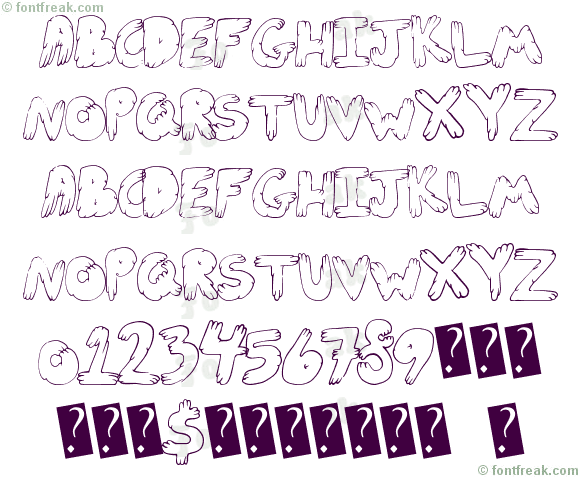
CuteFold
About CuteFold
CuteFold by Xerographer Fonts is a delightful display typeface that combines whimsy and charm, making it perfect for a variety of creative projects. This font features a playful aesthetic with rounded edges and a hand-drawn quality, giving it an inviting and friendly appearance. The stroke weight is consistent but varies slightly to enhance its organic feel, while the spacing between letters is moderately tight, allowing for cohesive word formation without sacrificing readability.
Ideal for use in wedding invitations, CuteFold adds a touch of lighthearted elegance to formal events. Its unique style also makes it suitable for children’s book covers, where a playful tone is essential for engaging young readers. Additionally, the font shines in restaurant menus, particularly for eateries that focus on a fun, casual dining experience. Graphic designers will appreciate its application in promotional materials, such as flyers and posters, where a whimsical touch can capture attention effectively. Small business owners aiming to create a memorable brand identity will also find CuteFold invaluable in logo design and product packaging.
What sets the CuteFold font apart is its ability to blend playfulness with versatility, making it a standout choice for various creative applications. Its friendly design invites connection and engagement, ensuring that any project featuring this font will leave a lasting impression. Don't miss the opportunity to enhance your designs with the CuteFold font free download, and let your creativity flow with this enchanting typeface.